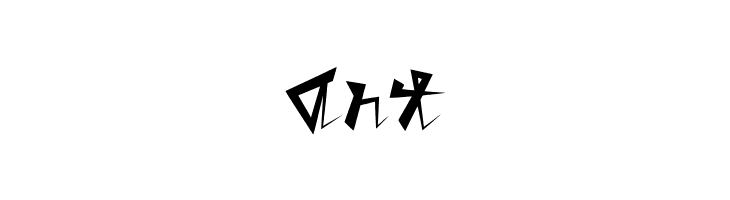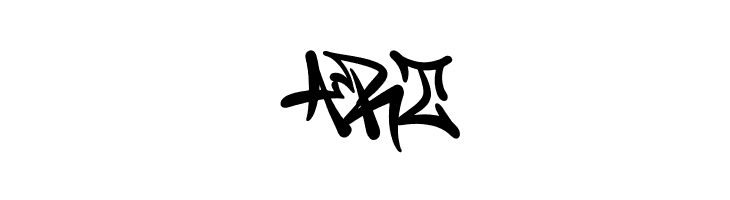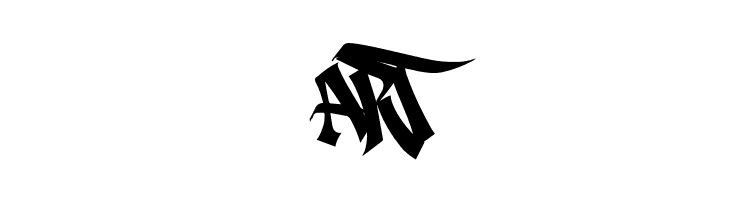
A bold, graffiti-inspired font with dynamic, rounded strokes and an urban flair.
An angular, aggressive font with sharp, jagged edges and a dynamic appearance.
A bold, graffiti-inspired font with sharp, angular edges and dynamic strokes.
A bold, graffiti-inspired font with dynamic, edgy styling.
Hand-drawn, graffiti-inspired display font with angular, dripping forms.
Graffiti-style, bold display font with sharp, angular forms.
Bold, graffiti-style display font with sharp, angular forms.
Bold, graffiti-inspired display font with sharp, angular strokes.
Bold, graffiti-inspired script with sharp angles and heavy slant.